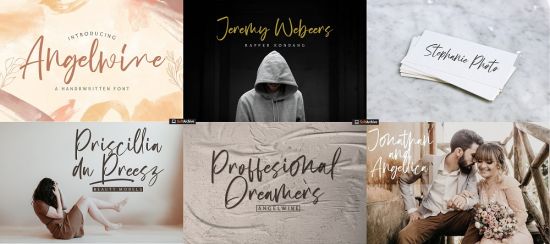
Angelwine is a Script Font with Handwritten Style. The Angelwine font made with digital brush pen strokes that making this font look authentic. This font is perfect for fashion brand, wedding invitation, business card, logo brand, signature, and then calligraphy.